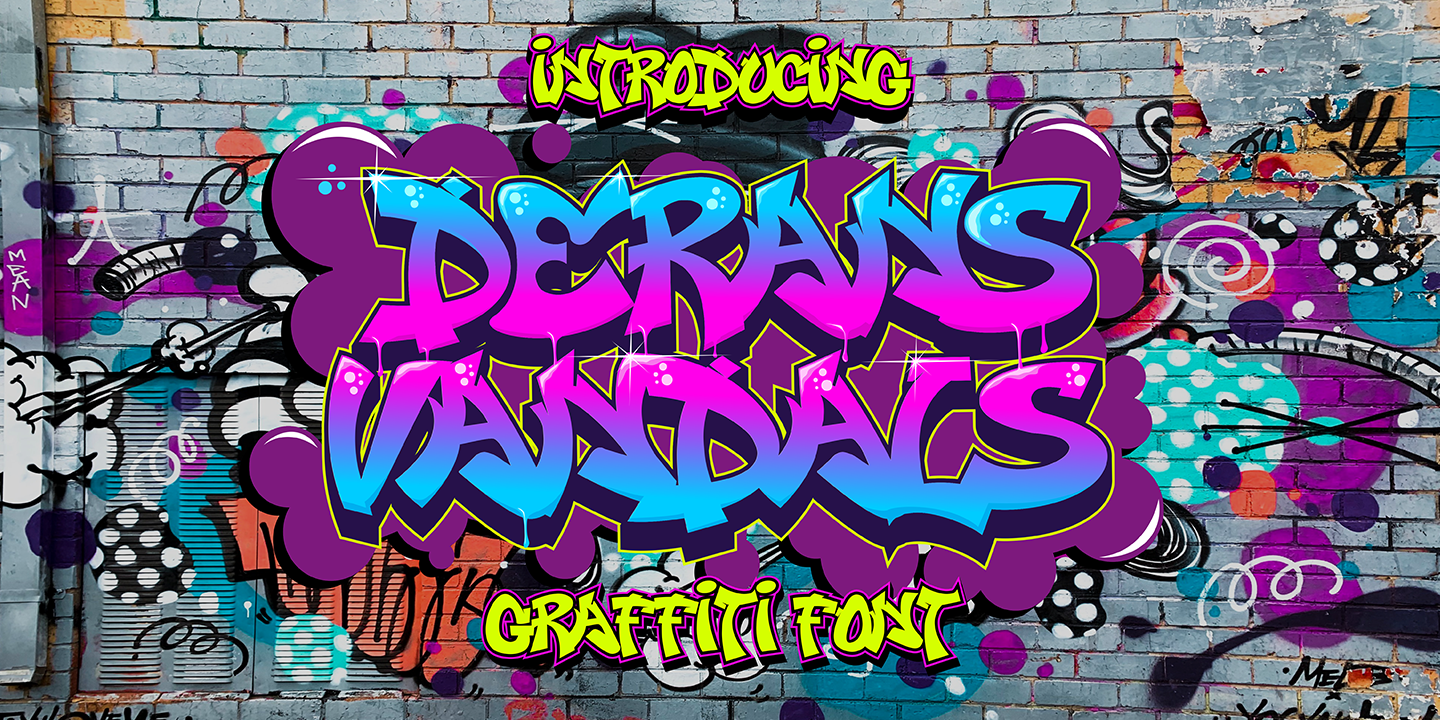
Derans Vandals Font is perfect for urban design projects, street art graphics, graffiti-style logos, hip-hop album covers, skateboard designs, youth-oriented branding, edgy poster designs, rebellious fashion labels, underground music promotions, and alternative lifestyle merchandise.
What makes Derans Vandals Font so exciting is its authentic street art aesthetic that captures the raw energy and rebellious spirit of urban culture. This distinctive typeface brings an edgy, hand-drawn quality that instantly communicates attitude and authenticity, making it ideal for brands and projects that want to connect with younger demographics or convey a sense of urban coolness and creative rebellion.
The Derans Vandals Font family typically includes regular weight variations with different stylistic alternates and character sets that maintain the graffiti-inspired aesthetic while ensuring readability across various design applications.
Whether you're creating bold headlines for youth marketing campaigns or developing brand identity for streetwear companies, Derans Vandals Font Free Download offers the perfect solution for designers seeking to incorporate authentic urban typography into their creative projects. This versatile font strikes the perfect balance between artistic expression and professional application, making it an essential addition to any designer's toolkit who works with contemporary, street-inspired visual communications.